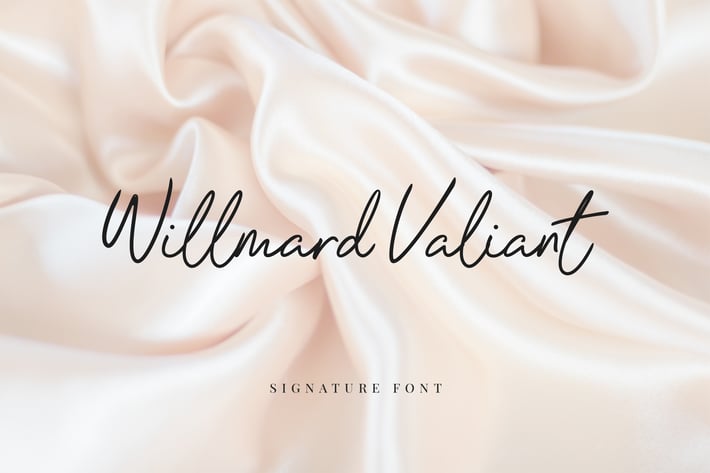
Willmard Valiant Signature Font
Introducing of our new product the name is Frankie Twist Signature Font. Modern signature font that feels beautiful classy, elegant, and modern .This font is perfect suited for a wide variety of projects, as to signature, stationery, logo, wedding, typography quotes, magazine or book cover, website header, clothing, branding, packaging design and more. Also for fashion related branding or editorial design and displays both masculine and feminine qualities.